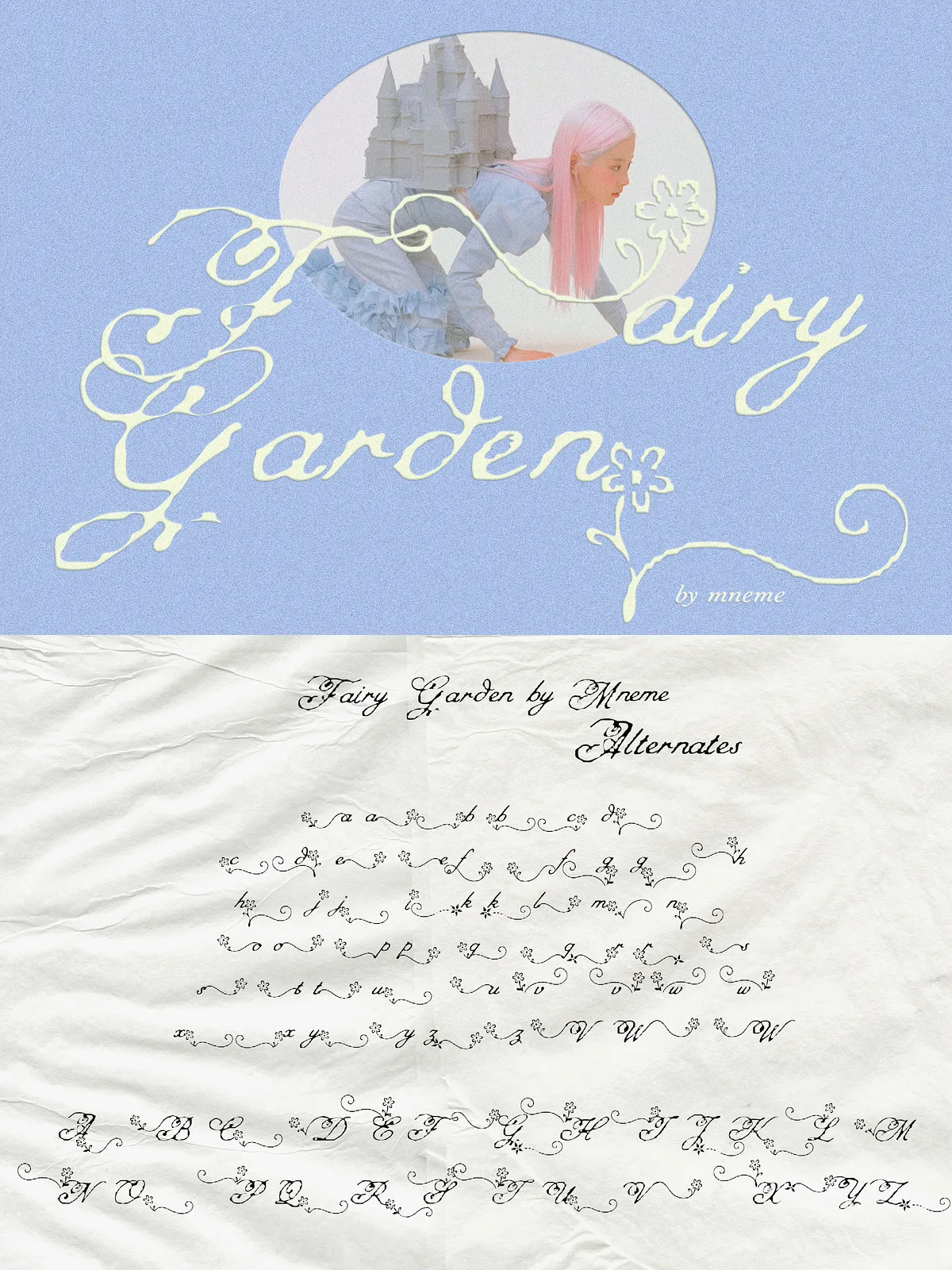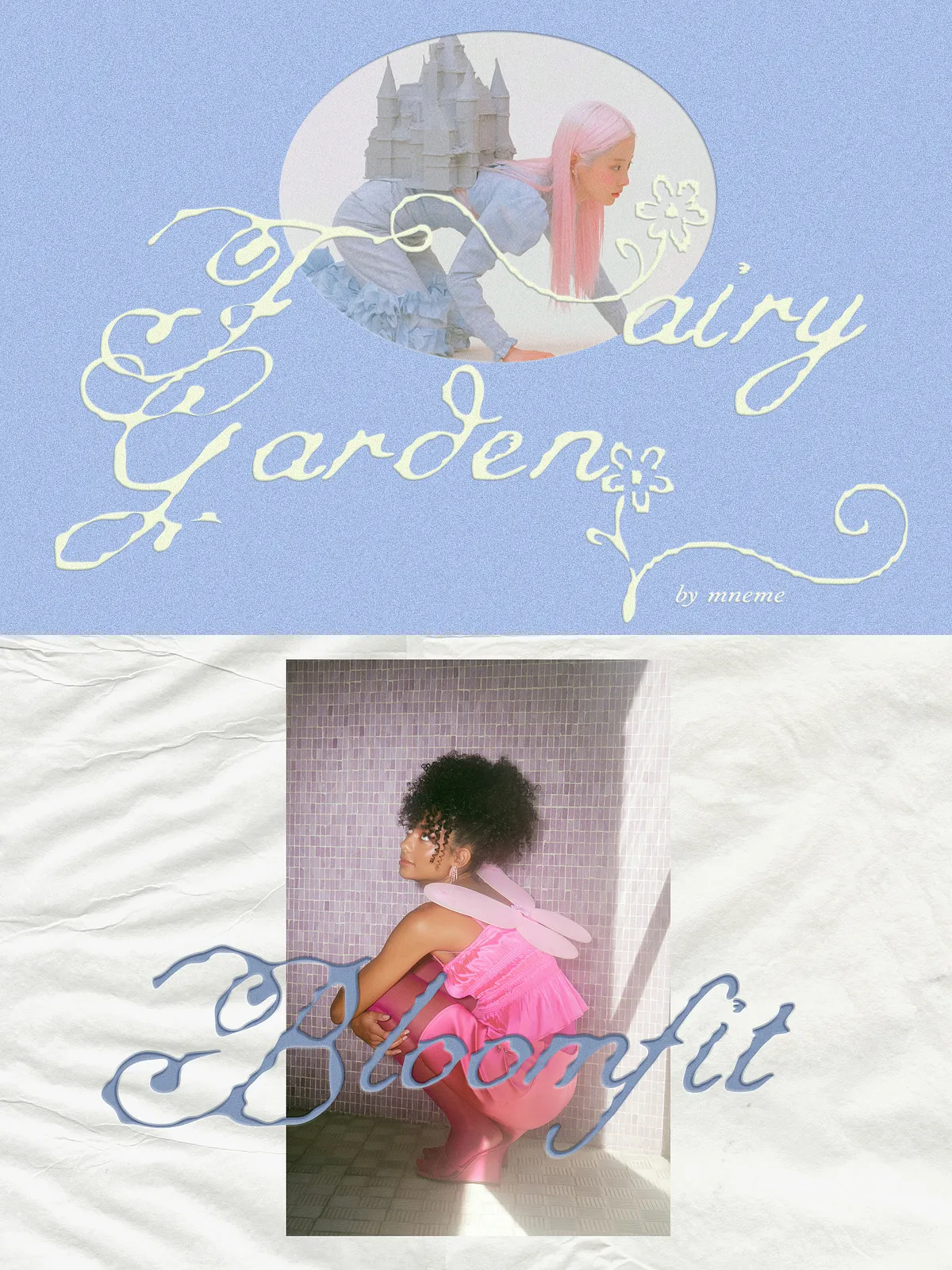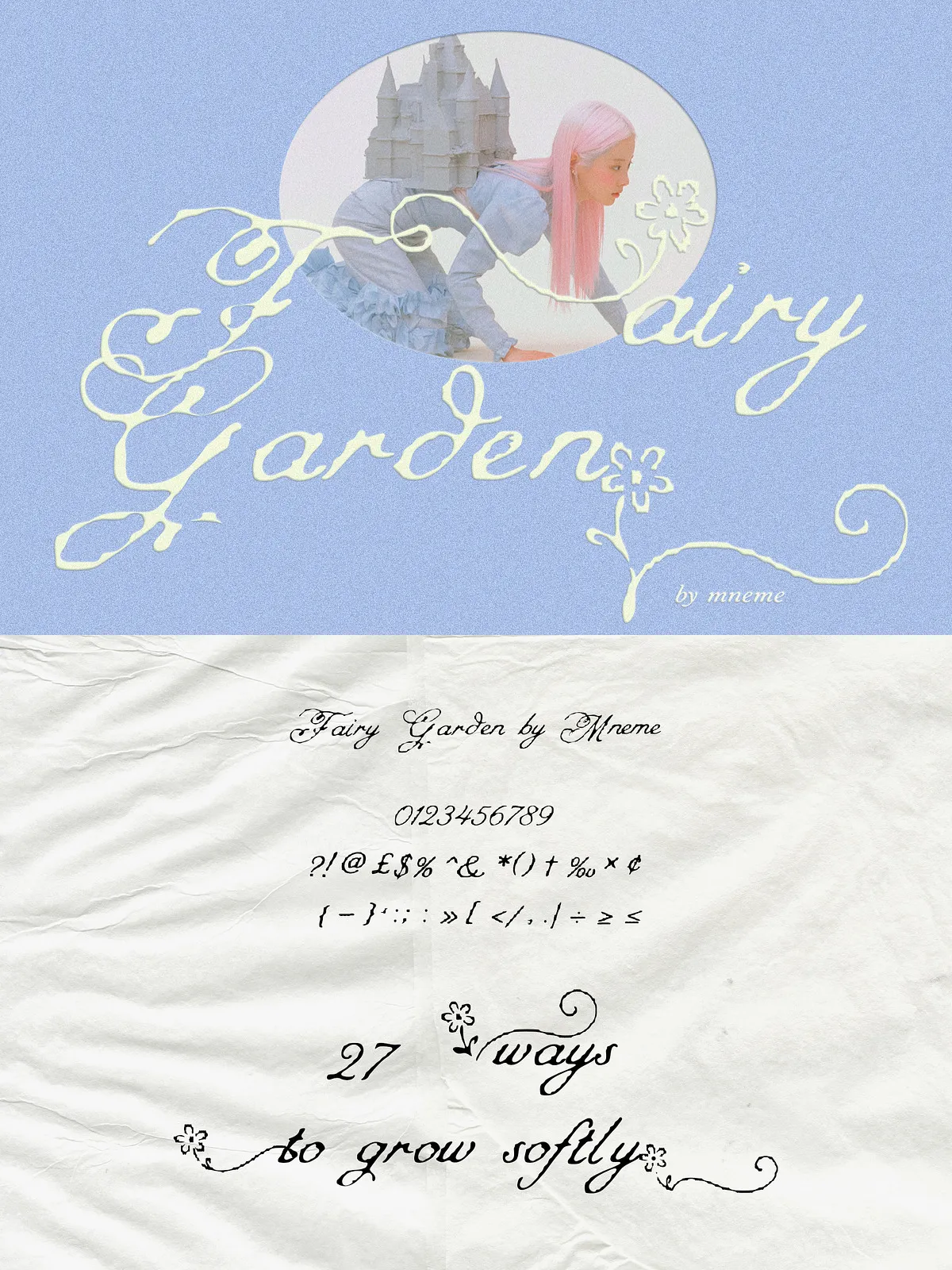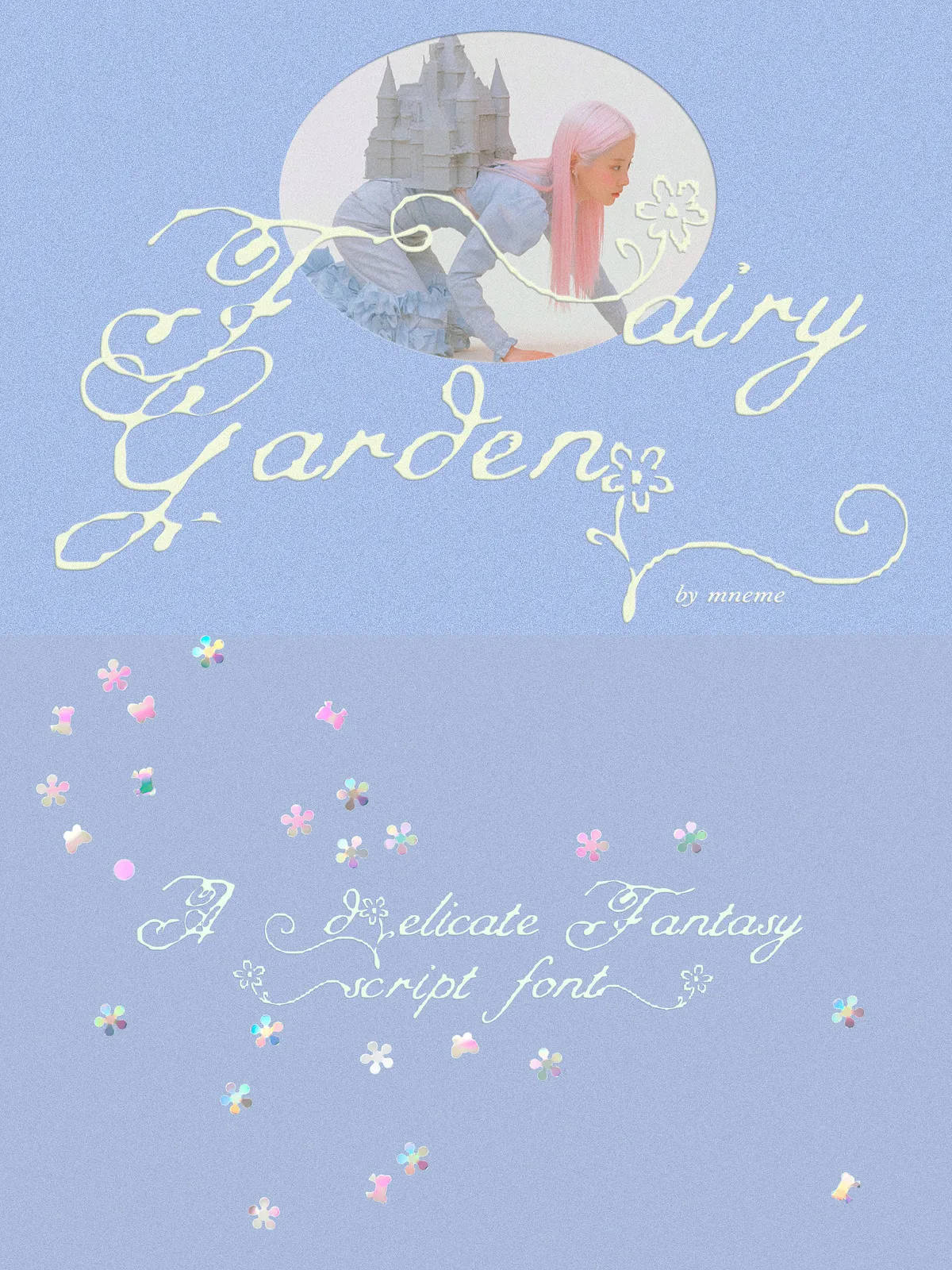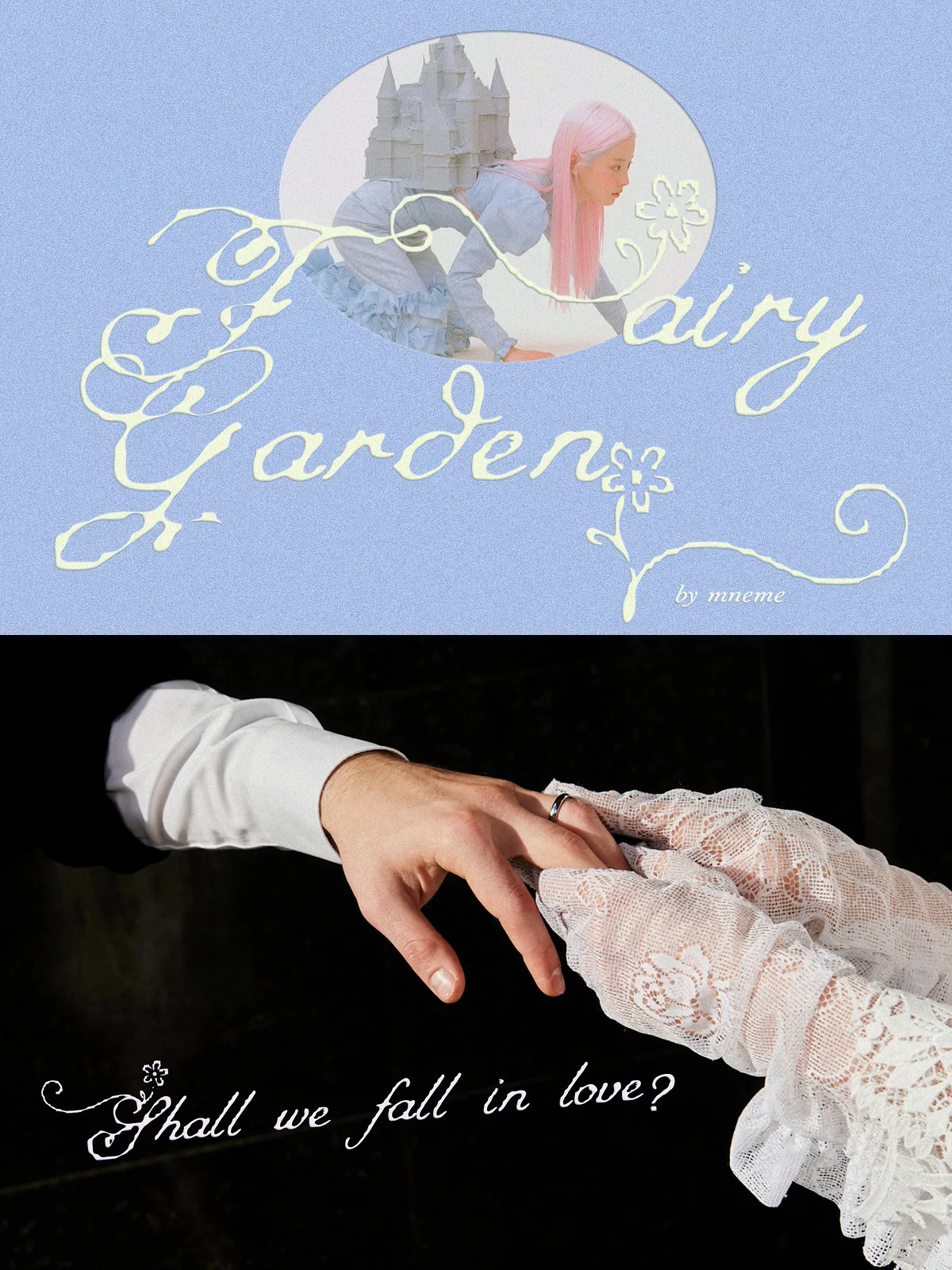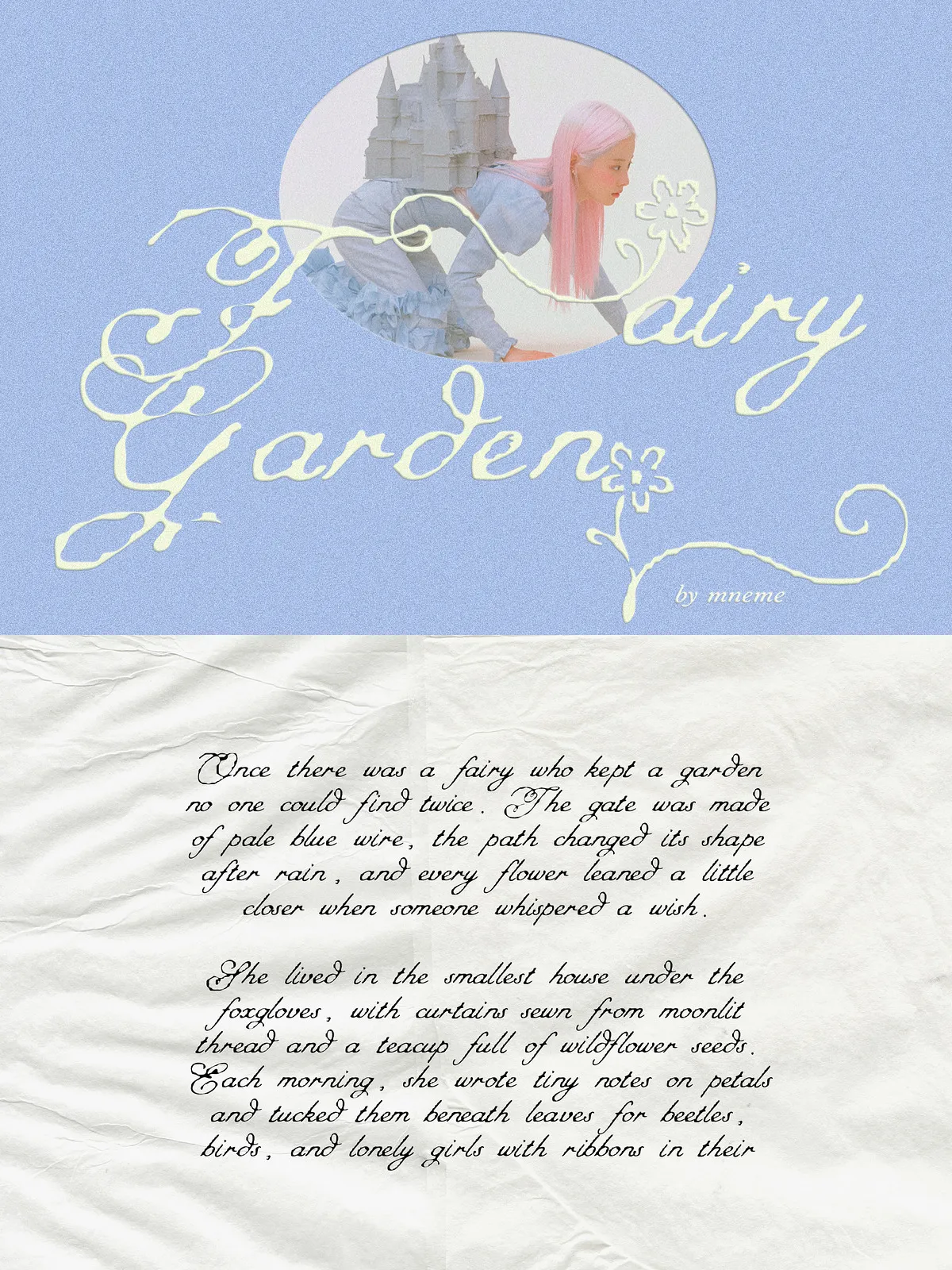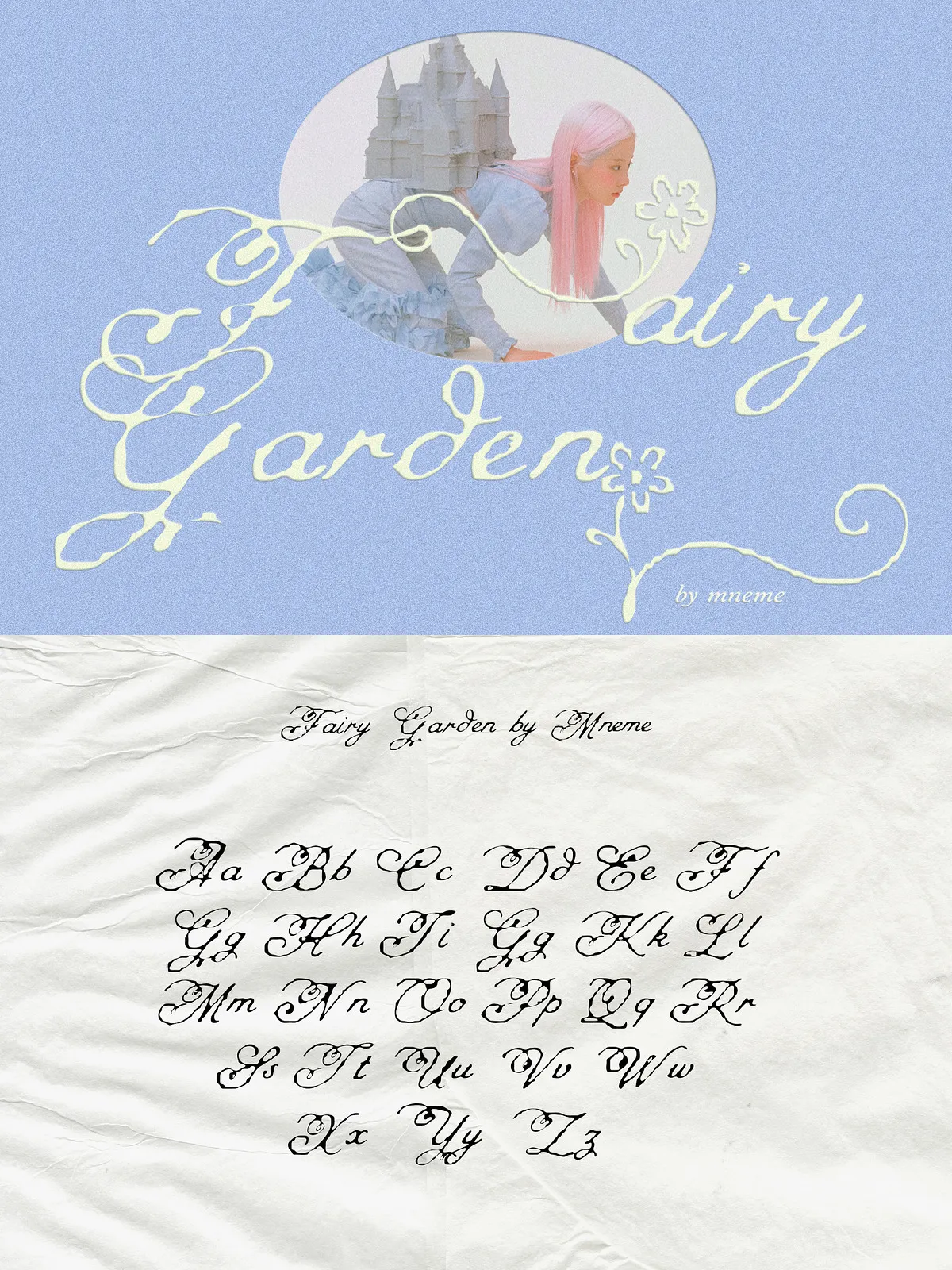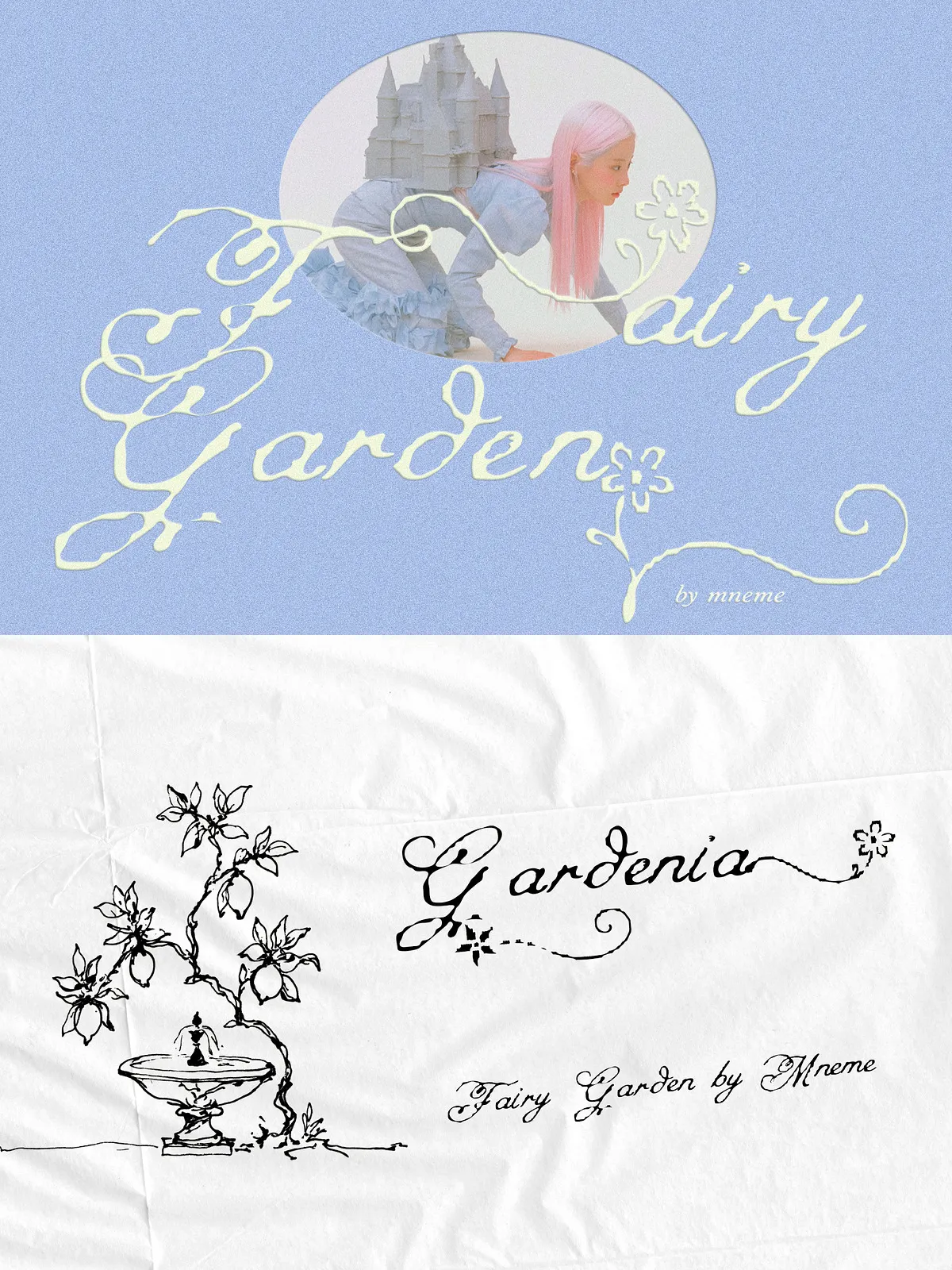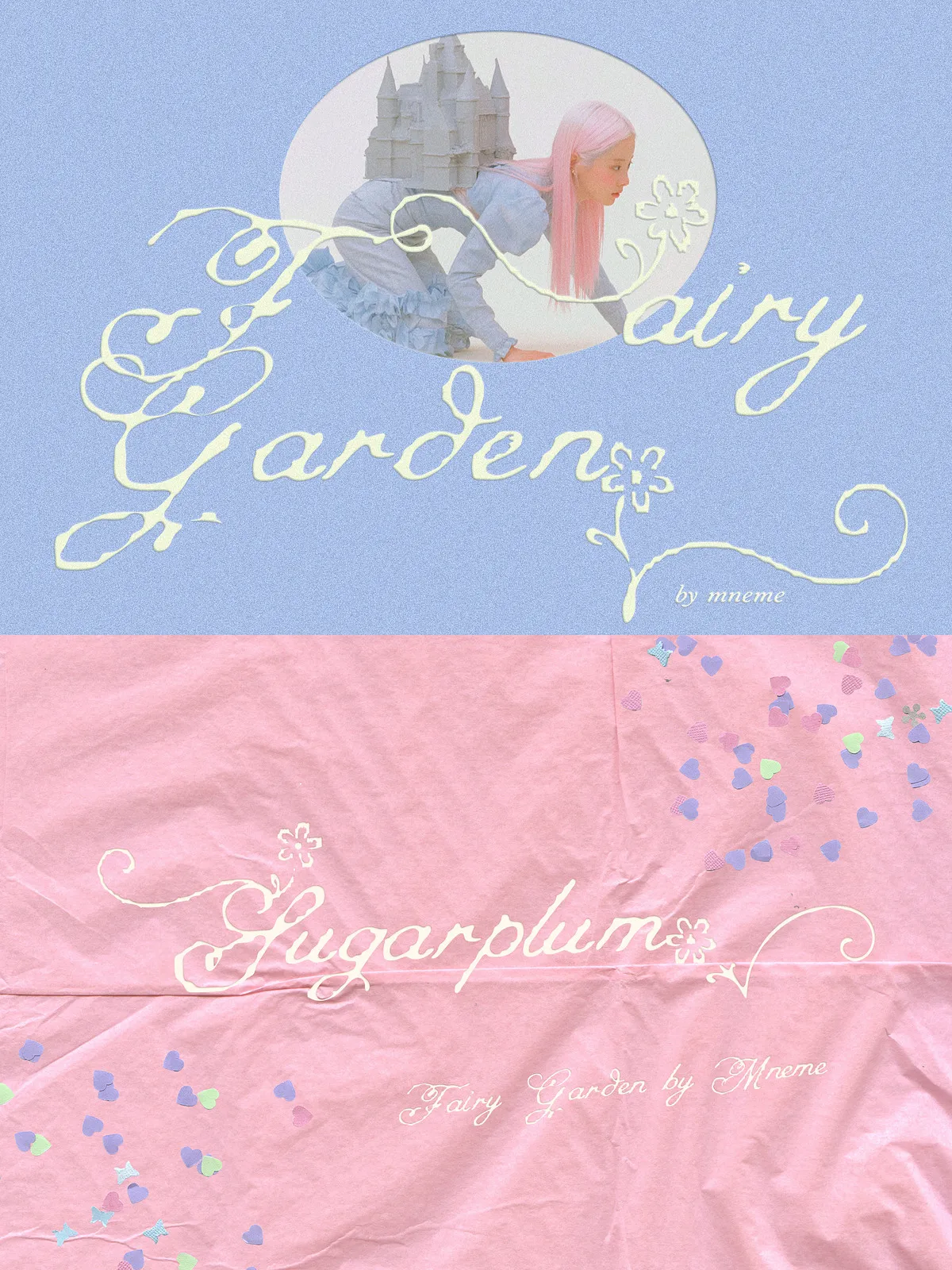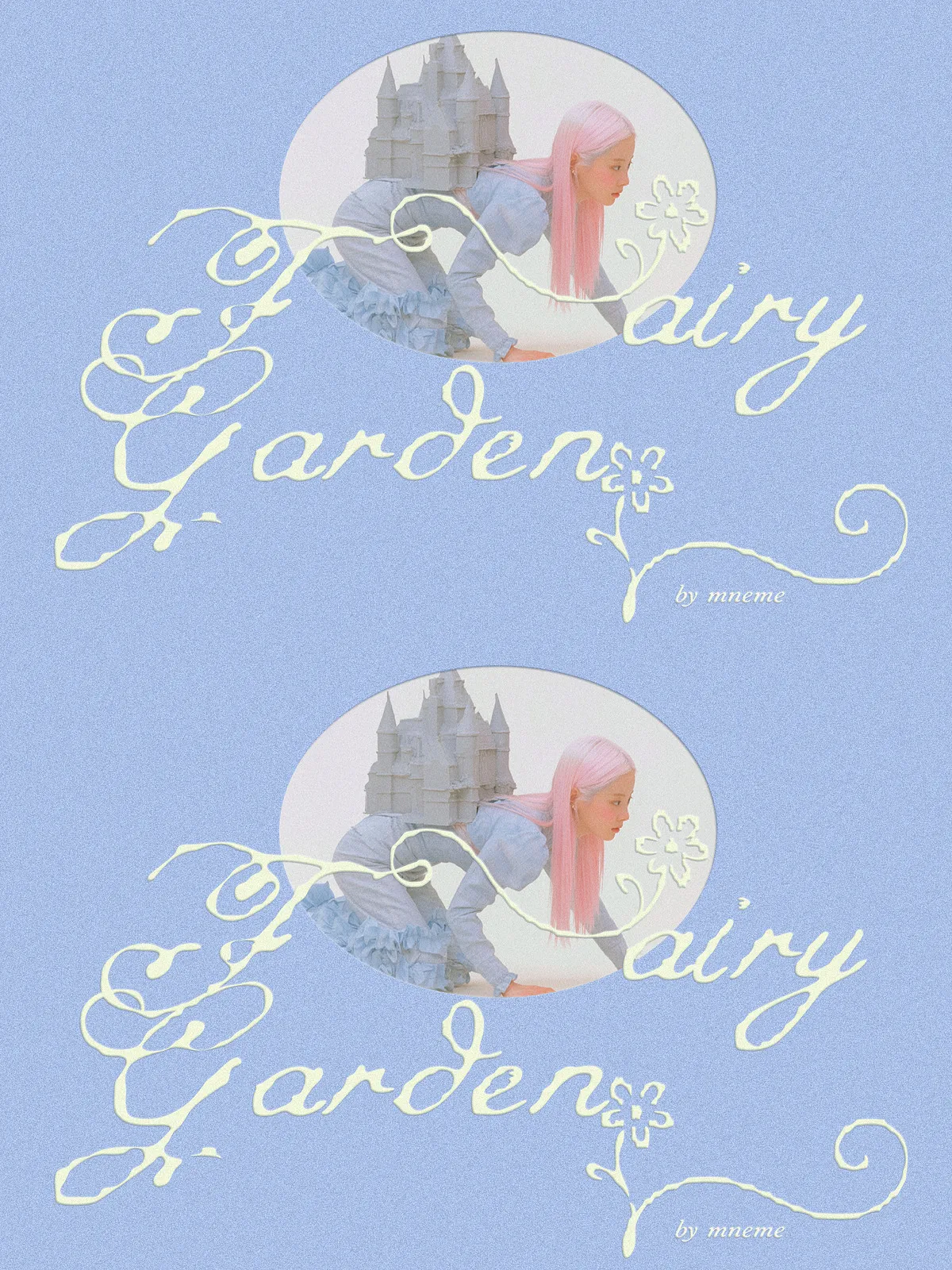
Fairy Garden delivers a soft, enchanted aesthetic through graceful letterforms, long wandering swashes, and floral alternates. Built to evoke a lightly magical, feminine mood, this script font actively transforms ordinary words into small visual moments. Designers seeking an airy, romantic voice will find Fairy Garden ideal for projects that require charm without losing readability.
Design Characteristics
Flowing Letterforms and Swashes
The core of Fairy Garden is its fluid, hand-drawn rhythm. Each character features gentle curves and extended swashes that lead the eye naturally across words and headlines. These flowing shapes work especially well in display settings where the typography itself becomes a focal decoration.
Floral Details and Decorative Alternates
Fairy Garden includes blooming alternates and decorative forms that add botanical accents to text. Use alternates to craft unique logotypes, initials, or headings that feel handcrafted and bespoke. The alternates activate a soft ornamental layer that complements pastel palettes and textured backgrounds.
Balanced Whimsy and Legibility
Although richly decorative, Fairy Garden keeps letter spacing and counters balanced so it remains legible in titles and short blocks of copy. The font intentionally preserves readability while offering expressive features for display use.
Included Glyphs and Technical Details
- Uppercase and lowercase alphabets
- Numerals and punctuation
- Decorative alternates and swashes
Recommended Uses
Invitations, Weddings & Event Collateral
Apply Fairy Garden to wedding invitations, save-the-dates, and event signage to set a romantic, whimsical tone. Use long swashes and alternates for names and headings to create a handcrafted, memorable impression.
Branding for Pastel & Boutique Businesses
Fairy Garden strengthens boutique identities that favor soft, feminine visuals—think small apothecaries, handmade gift shops, children’s boutiques, and floral studios. Combine the script with clean supporting type to maintain clarity across brand touchpoints.
Packaging & Product Labels
Use the font on product labels and packaging where a handcrafted, gentle aesthetic reinforces perceived quality. Fairy Garden interacts especially well with textured papers, soft colorways, and botanical illustration elements.
Editorial Titles & Social Graphics
Use Fairy Garden for dreamy editorial headlines, quote overlays, and social media graphics that require personality and movement. Keep text lengths short for best visual impact.
Styling, Pairing, and Usage Tips
Pair with a Neutral Sans for Balance
Pair Fairy Garden with a simple sans-serif for body copy to preserve legibility and to highlight the script as a display element. Choose a neutral geometric or humanist sans for modern contrast.
Control Swashes for Readability
Activate swashes and alternates selectively. Use long swashes on single words or names, and reduce ornamental elements for multi-word lines to avoid clutter. Adjust letterspacing when combining with decorative alternates.
Color, Backgrounds and Texture
Choose soft pastels, muted neutrals, or light jewel tones to complement the font’s delicate character. When placing text over imagery, apply subtle overlays, outlines, or soft shadows to maintain legibility while preserving the ethereal mood.
Why Choose Fairy Garden
Fairy Garden actively enhances designs with a soft, magical aesthetic that reads as both playful and refined. It empowers creatives to craft tender, emotive compositions for invitations, boutique branding, packaging, and children’s projects. The font’s alternates and swashes provide flexible tools to build distinctive headlines, monograms, and decorative wordmarks while keeping the overall design approachable and readable.
Quick Usage Examples
- Wedding invitation headline: enable swashes on the couple’s names for a hand-lettered effect.
- Product label: set the product name in Fairy Garden and the ingredients in a clean sans-serif for clarity.
- Social post: use a single quoted line in Fairy Garden over a soft gradient and keep the caption in plain text.